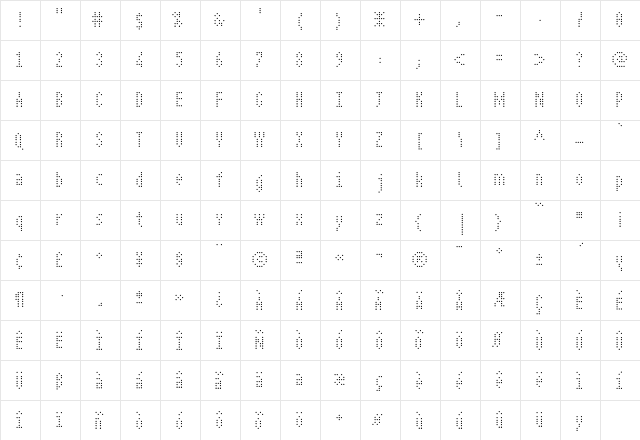
IDE Regular
Design Context for IDE Typeface
IDE is a composed and adaptable typeface that performs quietly and consistently across a wide range of design contexts.